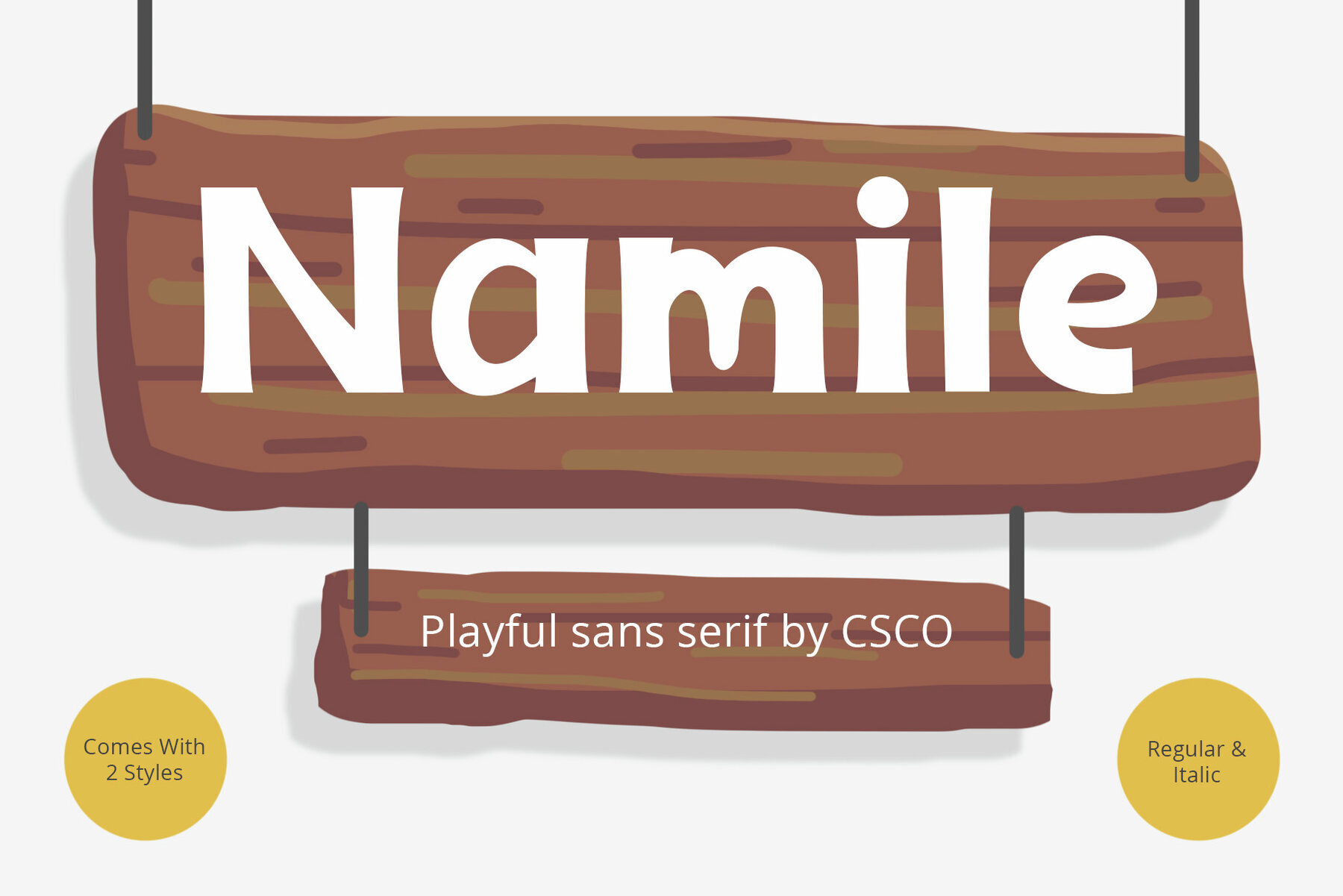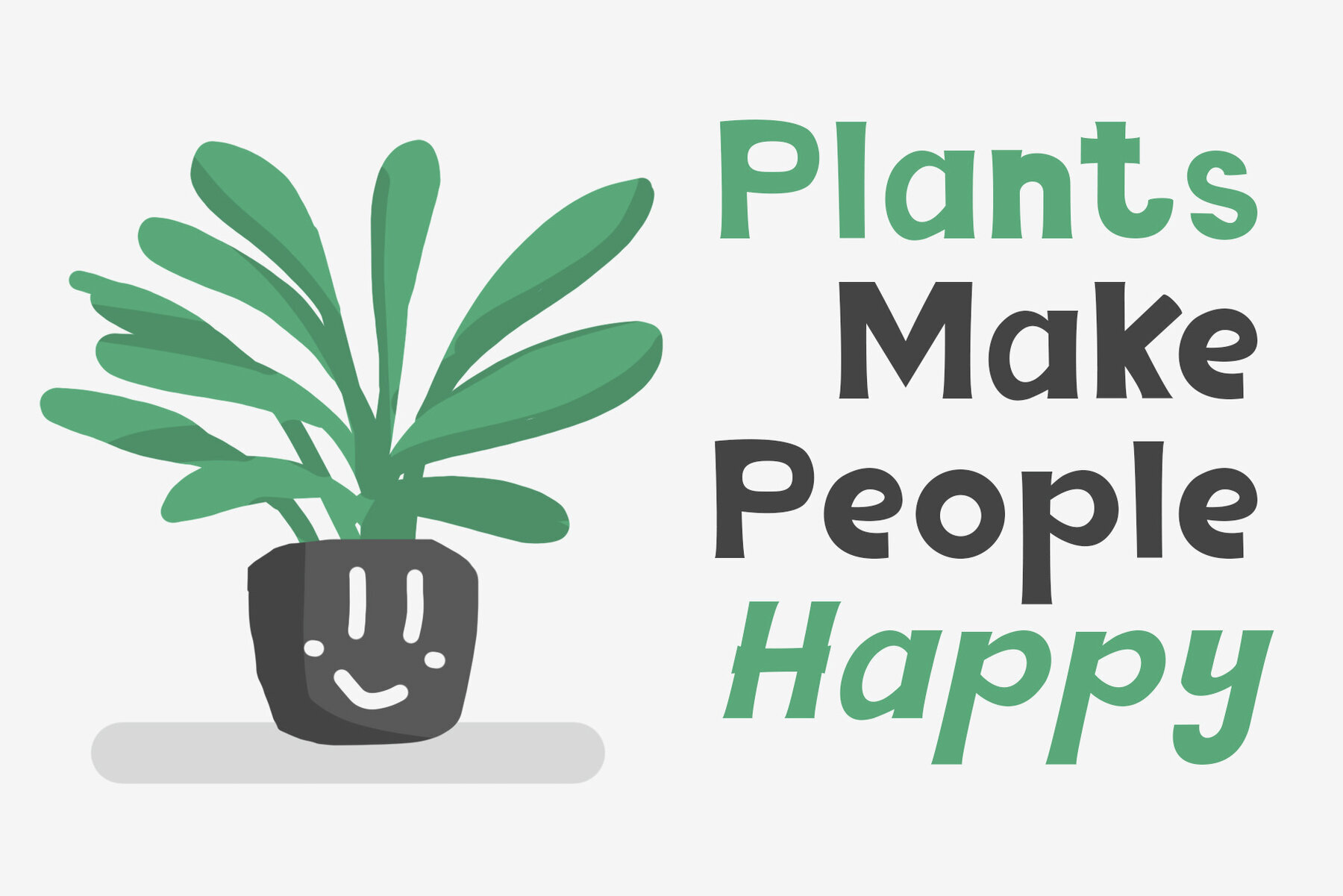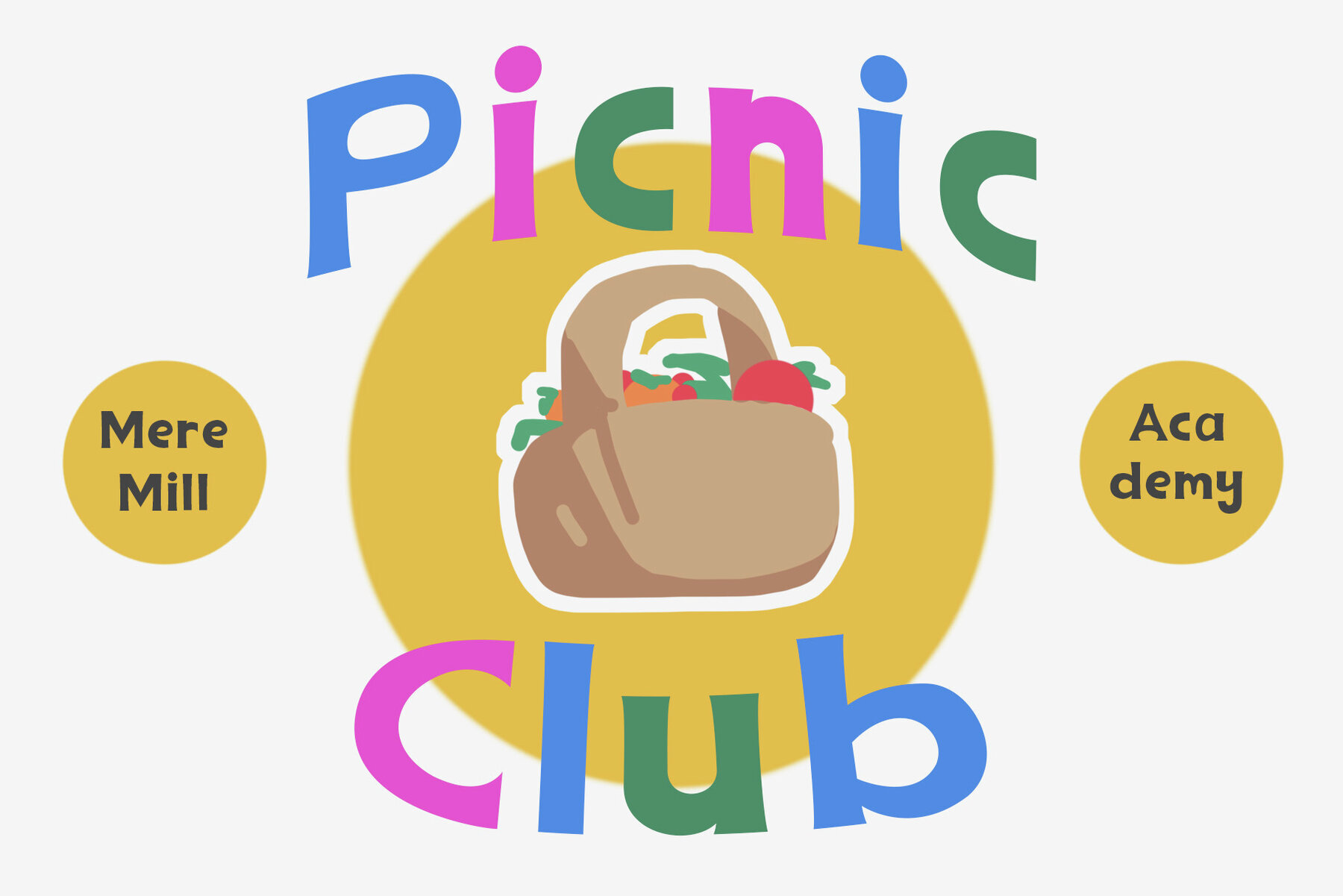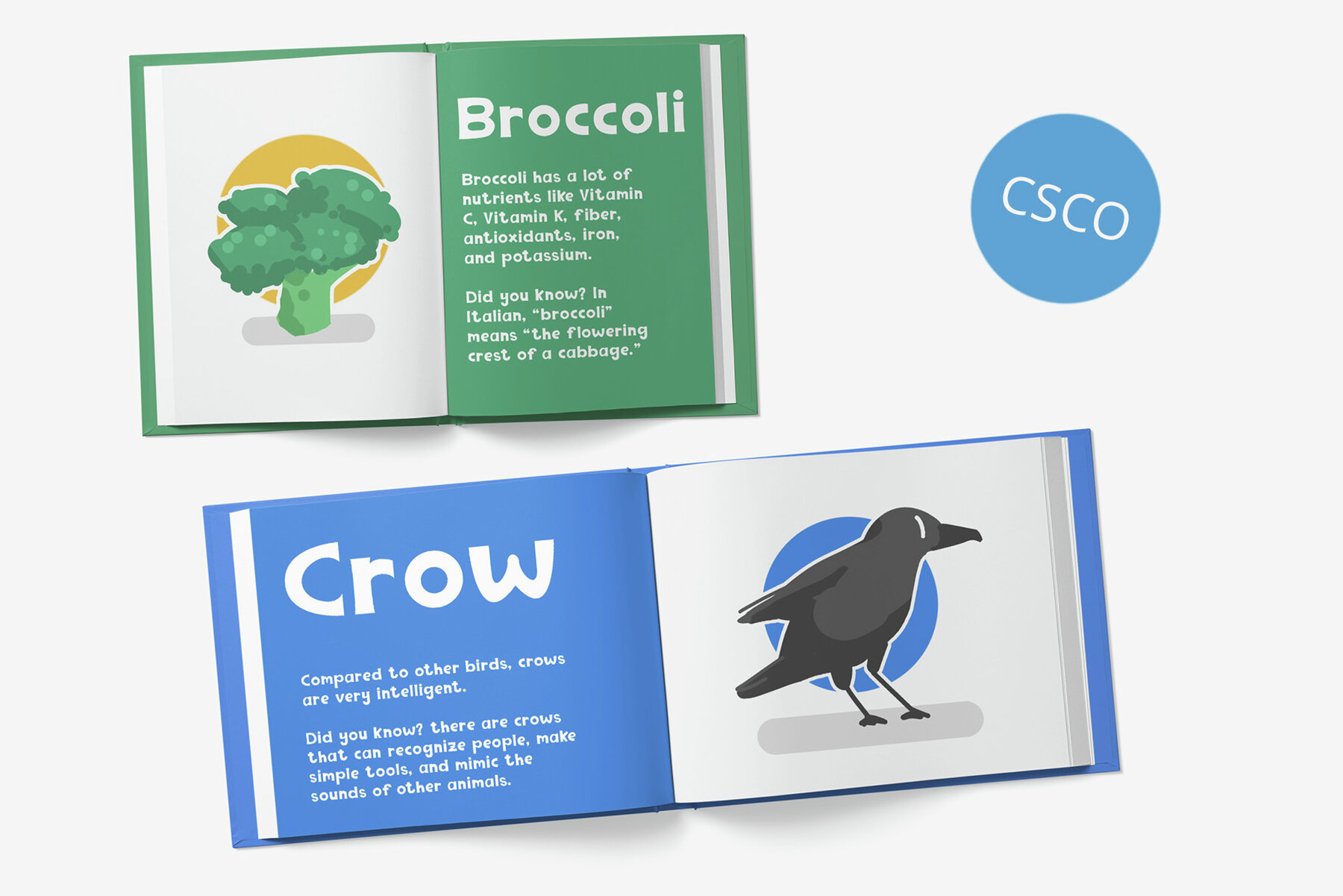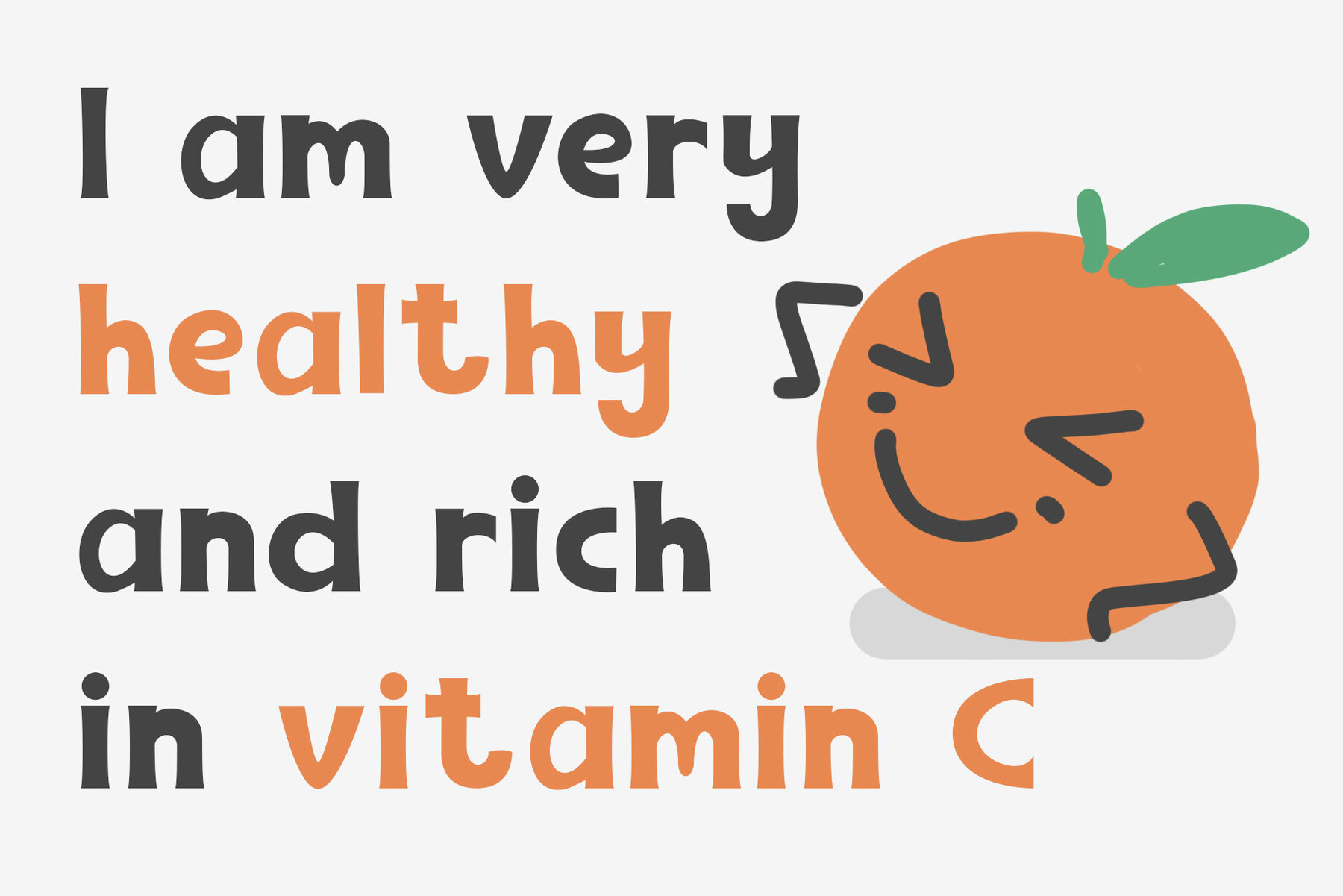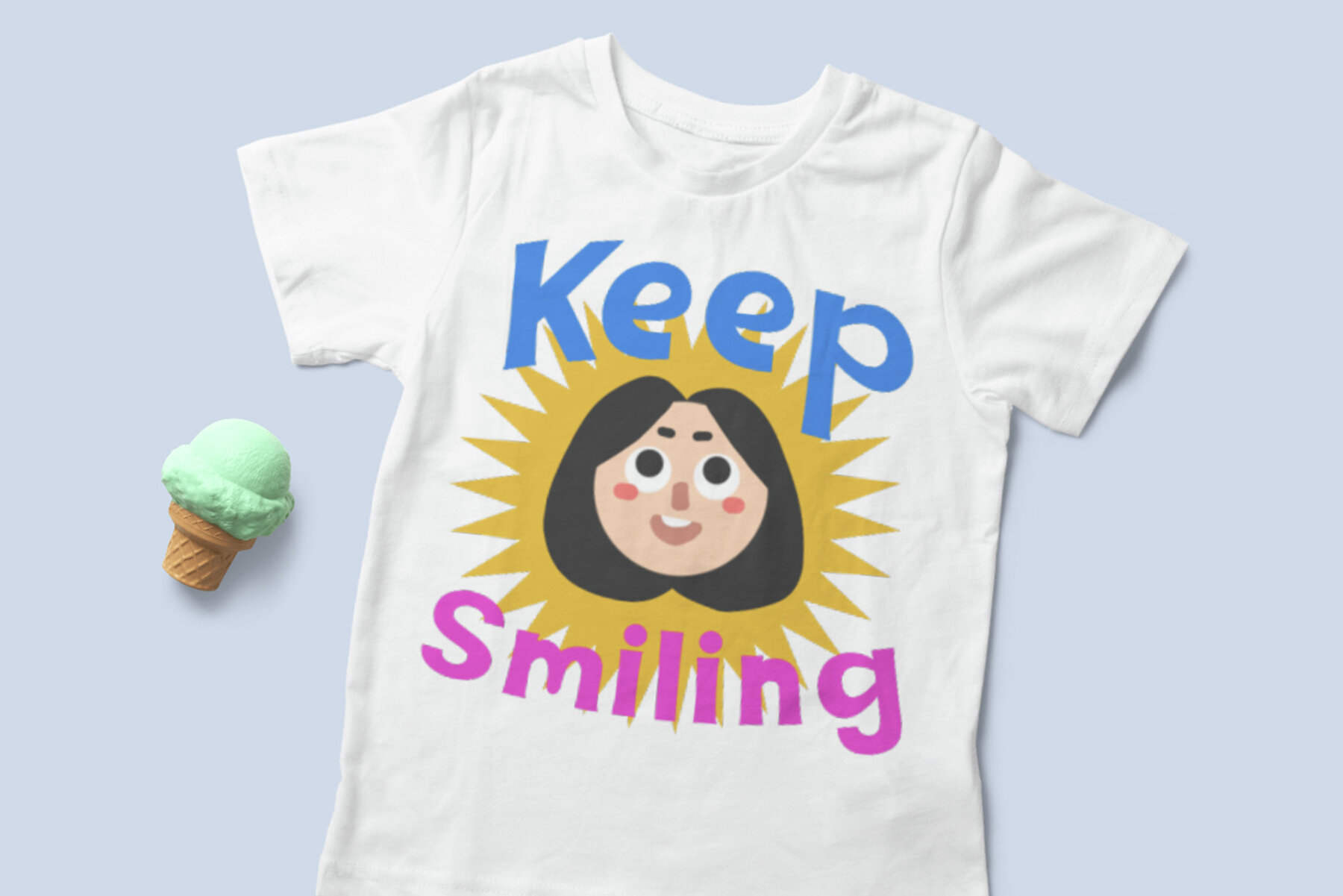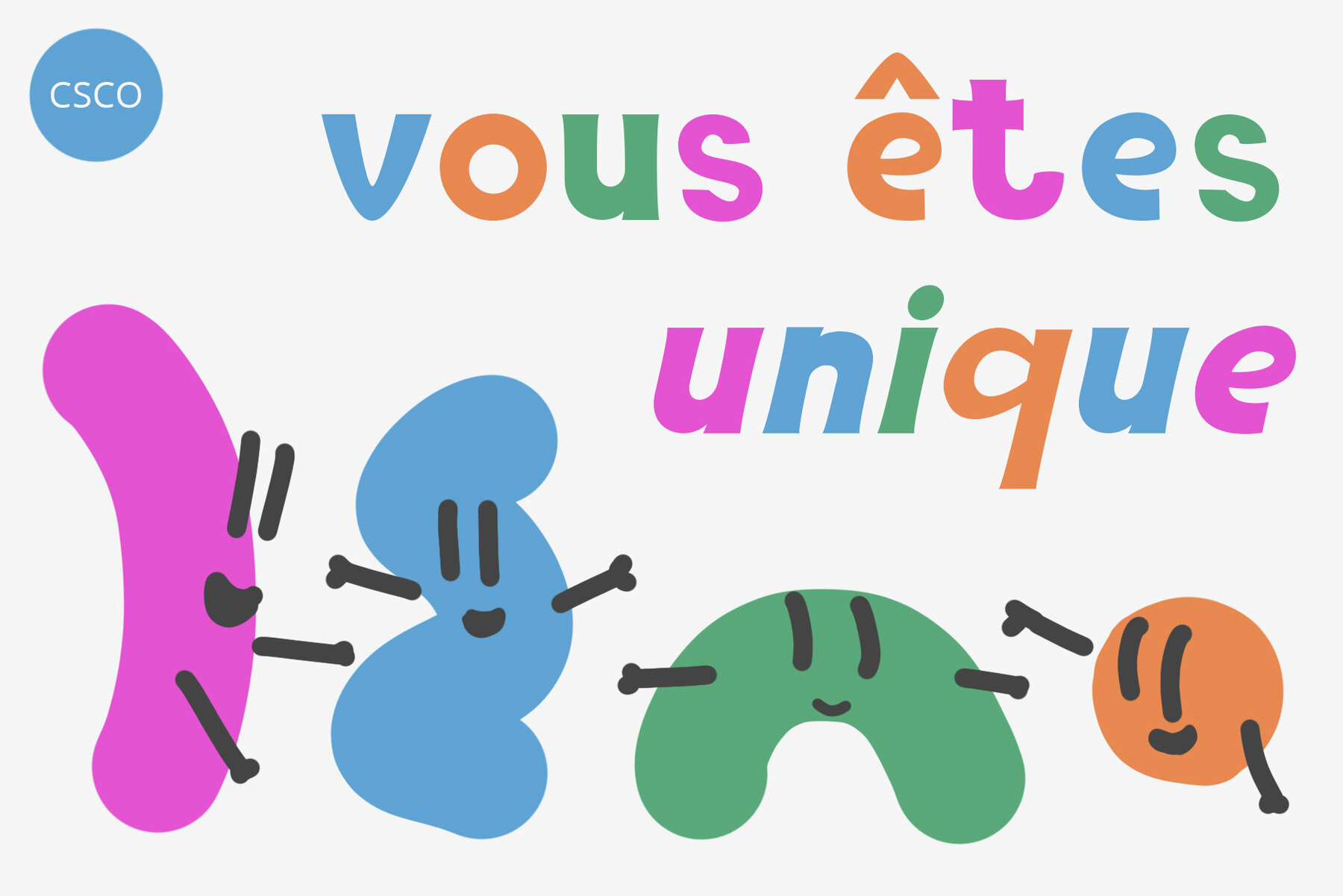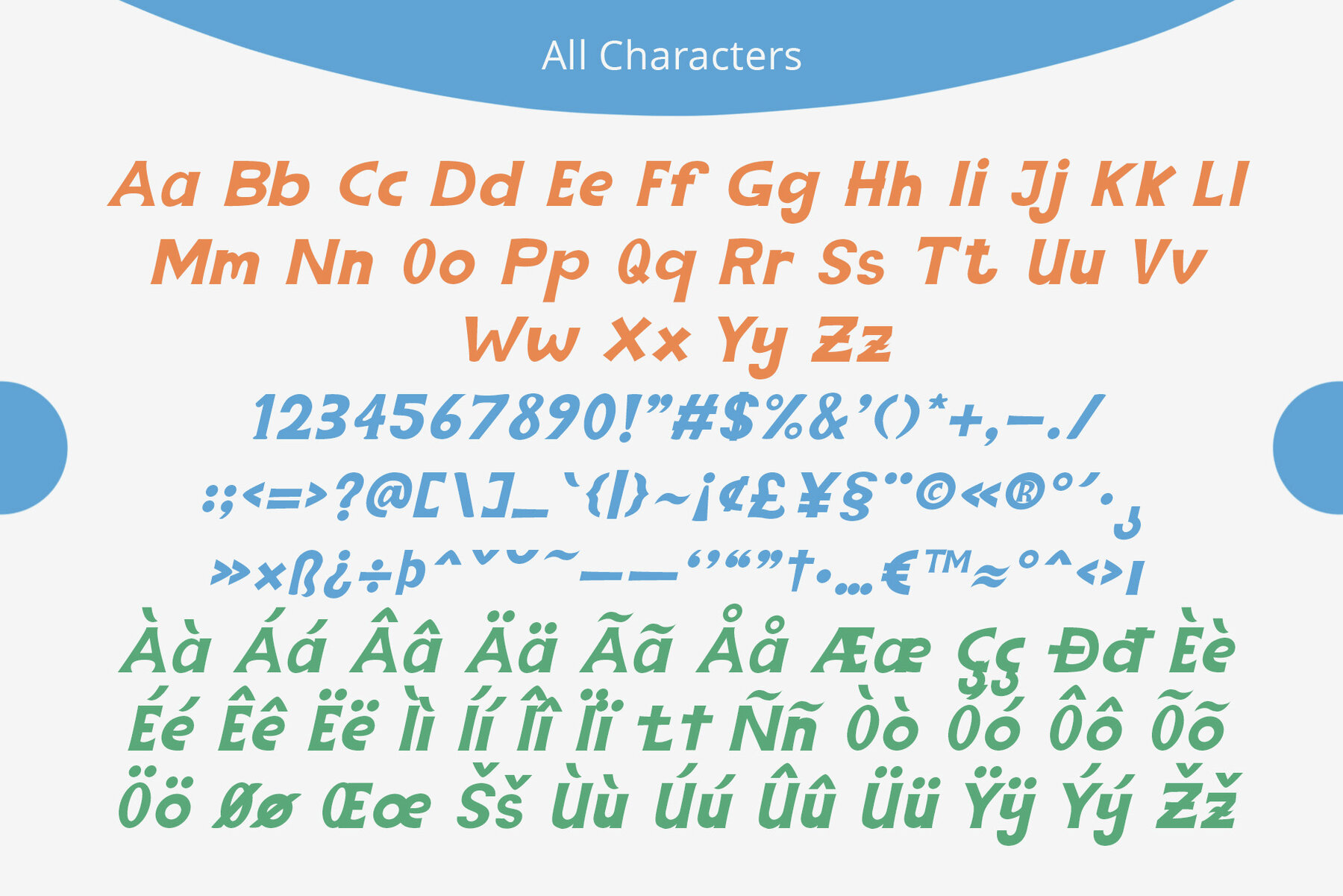
Namile Font
Namile is a unique sans serif font that breaks away from the ordinary. Its playful nature infuses designs with a touch of whimsy and personality, making it ideal for a range of creative projects. Specially crafted for eccentric displays, Namile brings a vibrant and whimsical element to any creative endeavor. This font is perfect for adding a lively twist to your work. The versatility of Namile makes it a perfect fit for various design scenarios. Whether you're working on branding, posters, or other creative projects, Namile offers a fresh and expressive option.Namile: Playful Sans Serif with Whimsical Flair
Designed for Eccentric Displays
Versatility Across Design Contexts